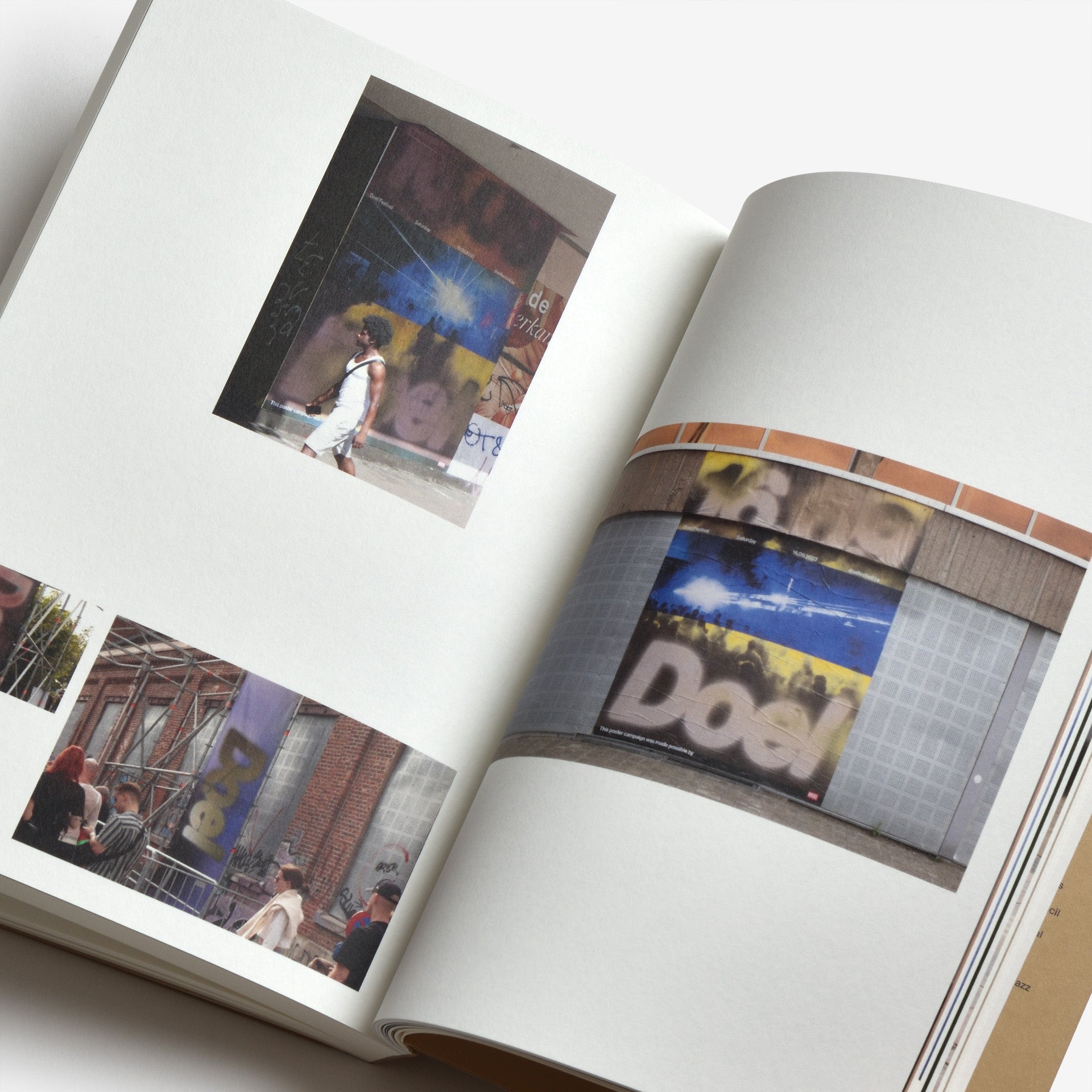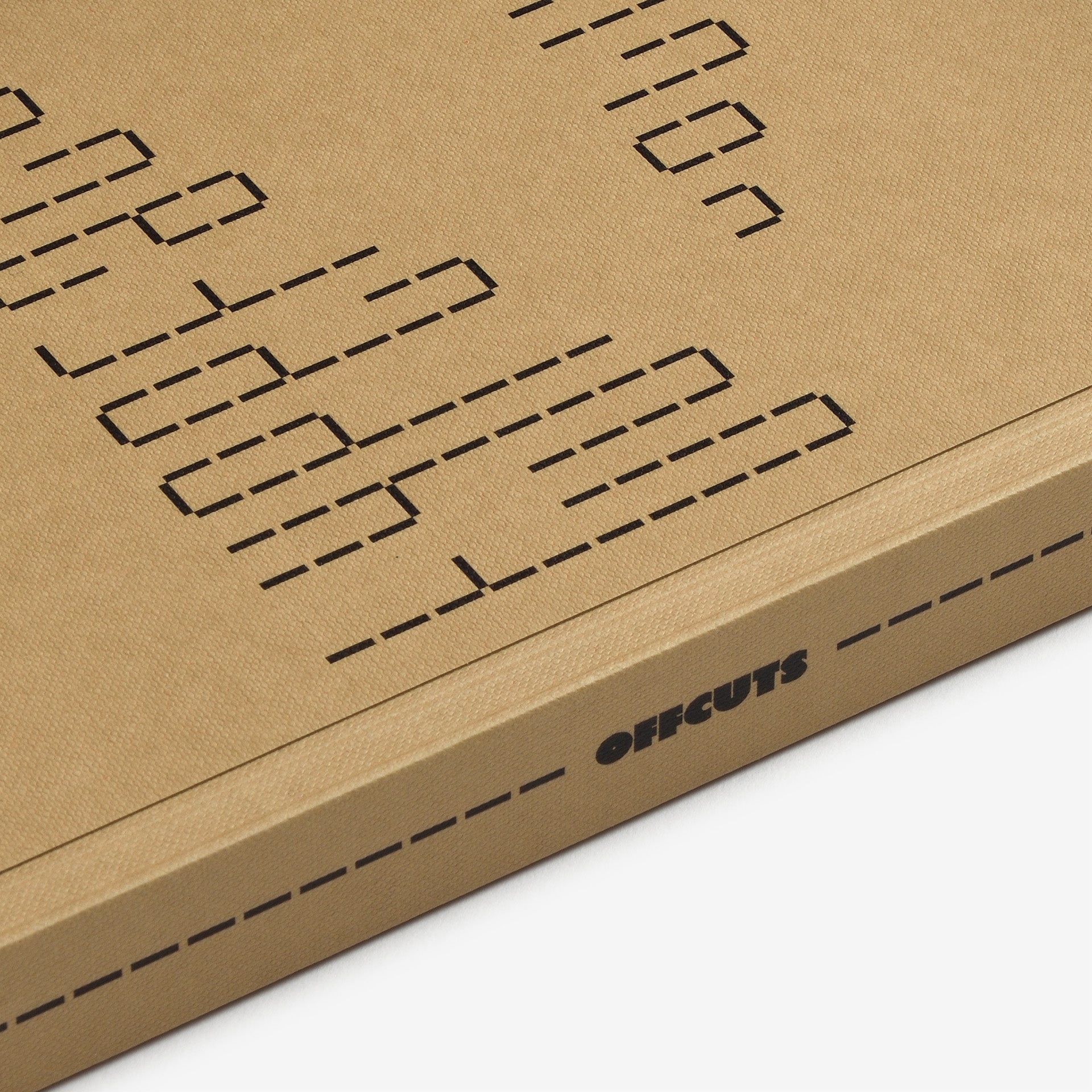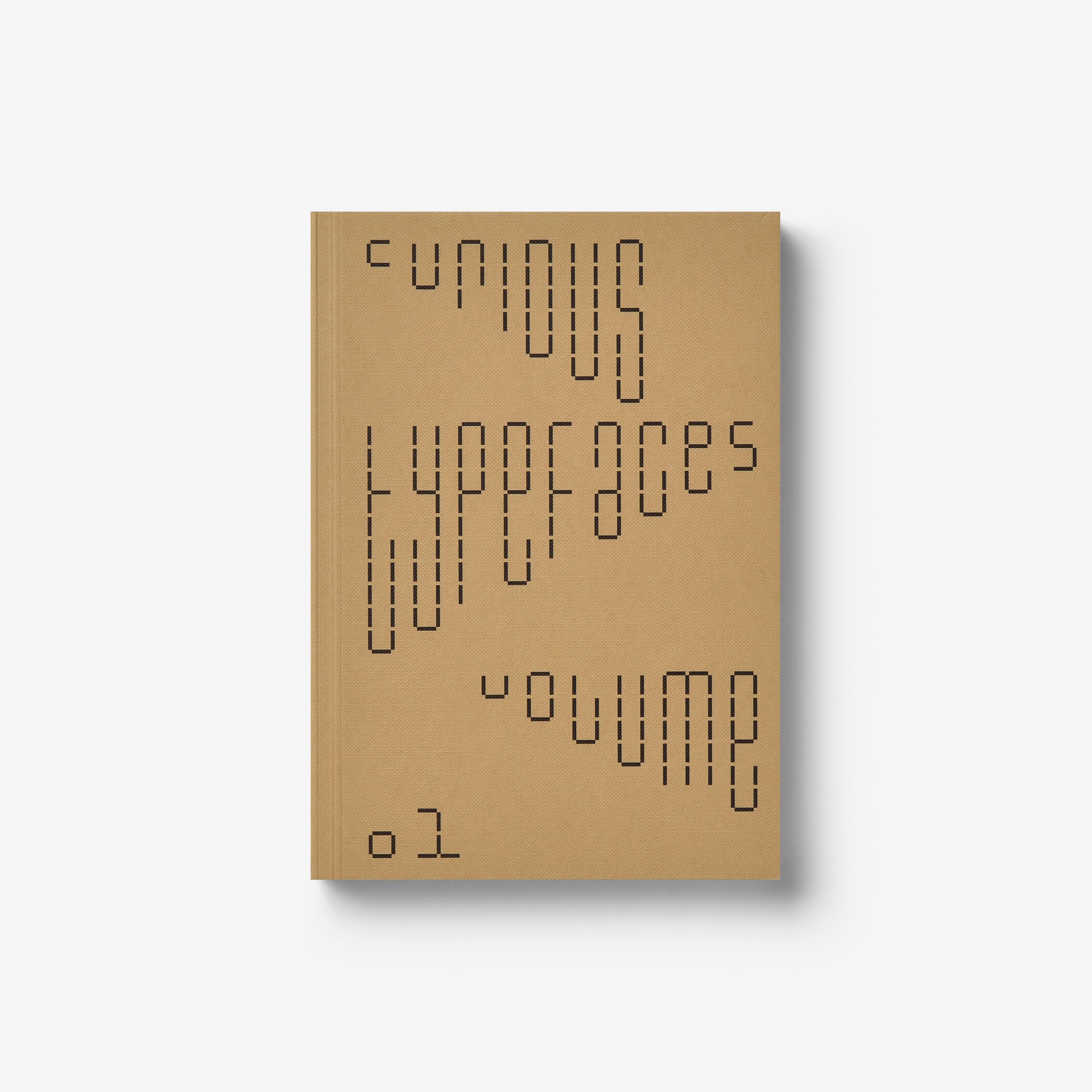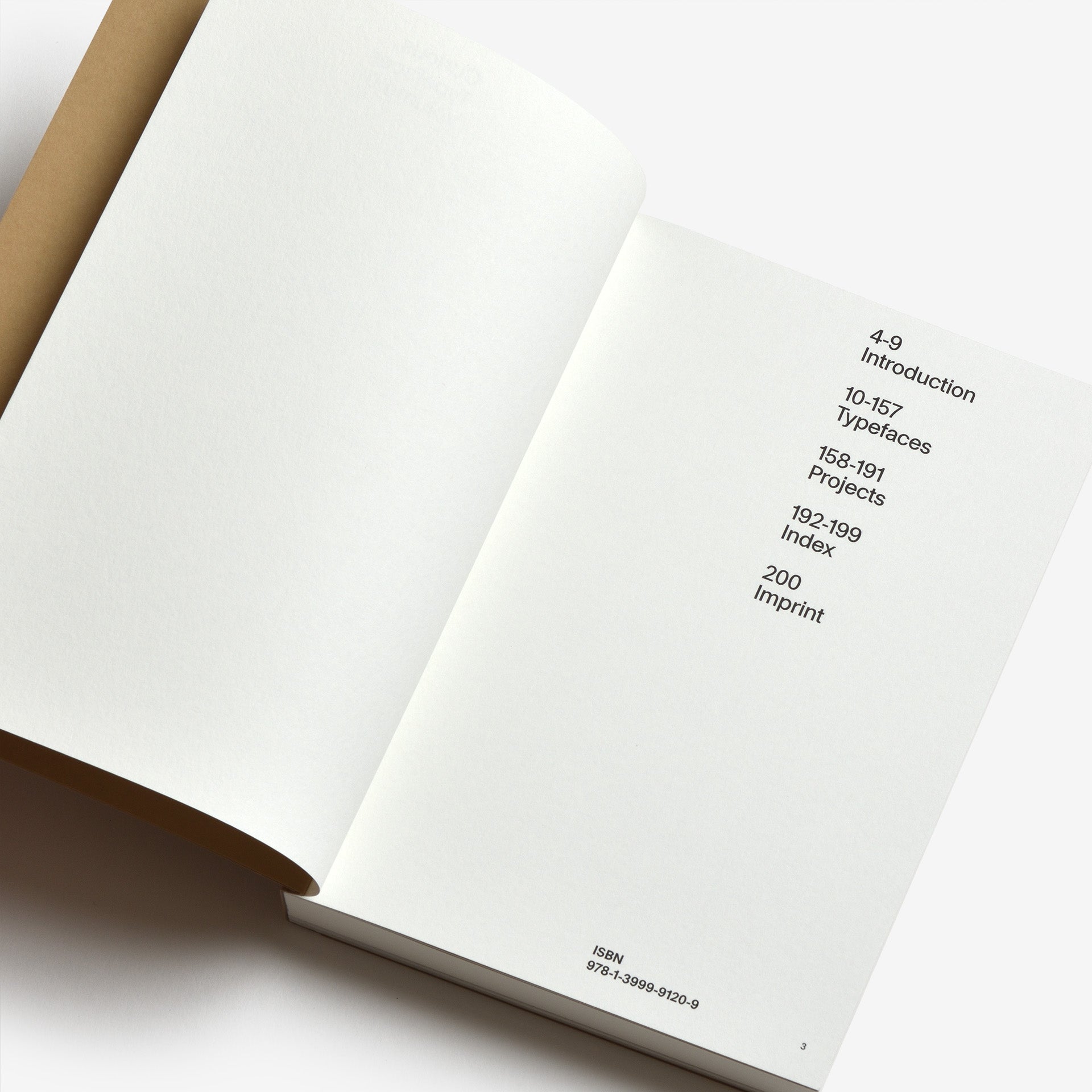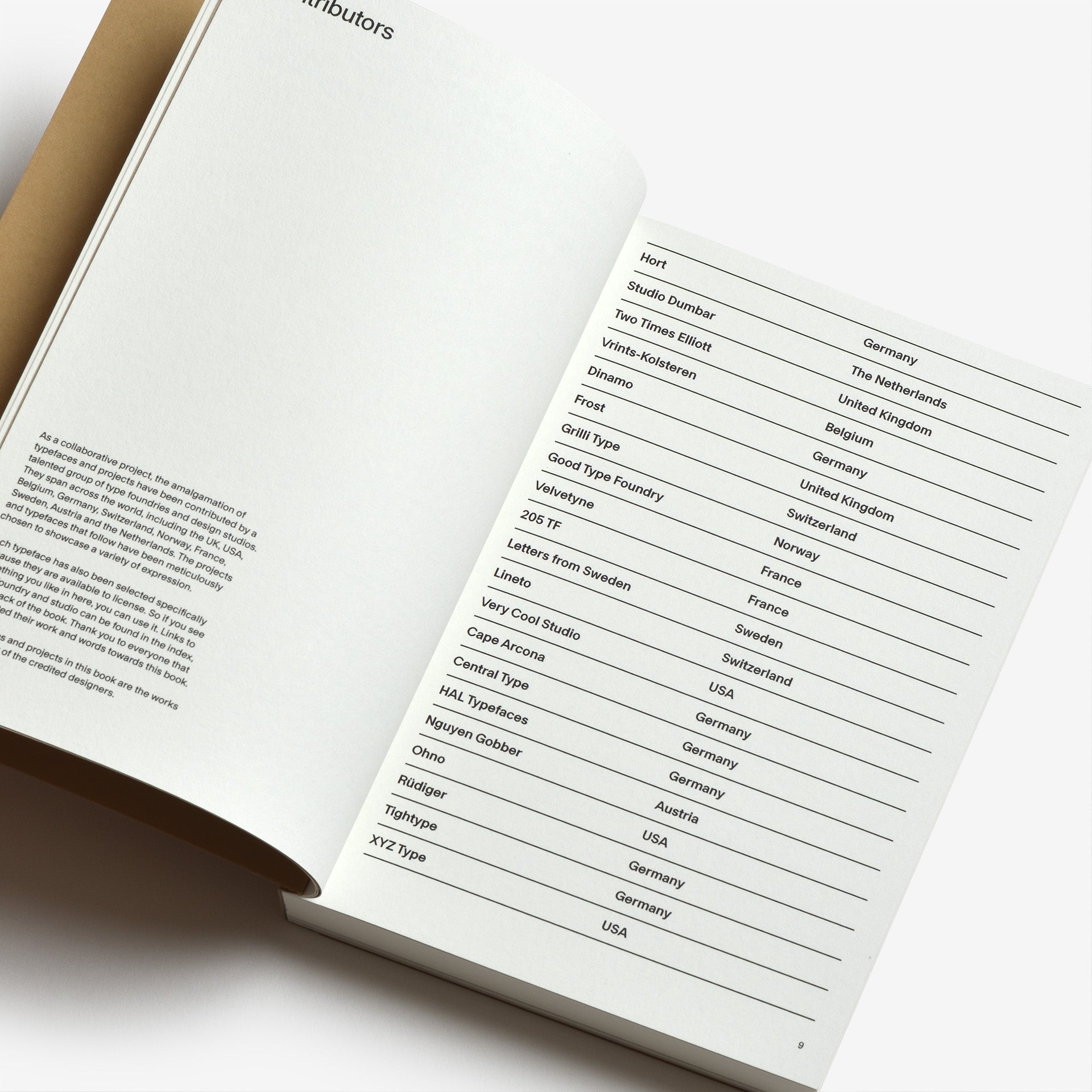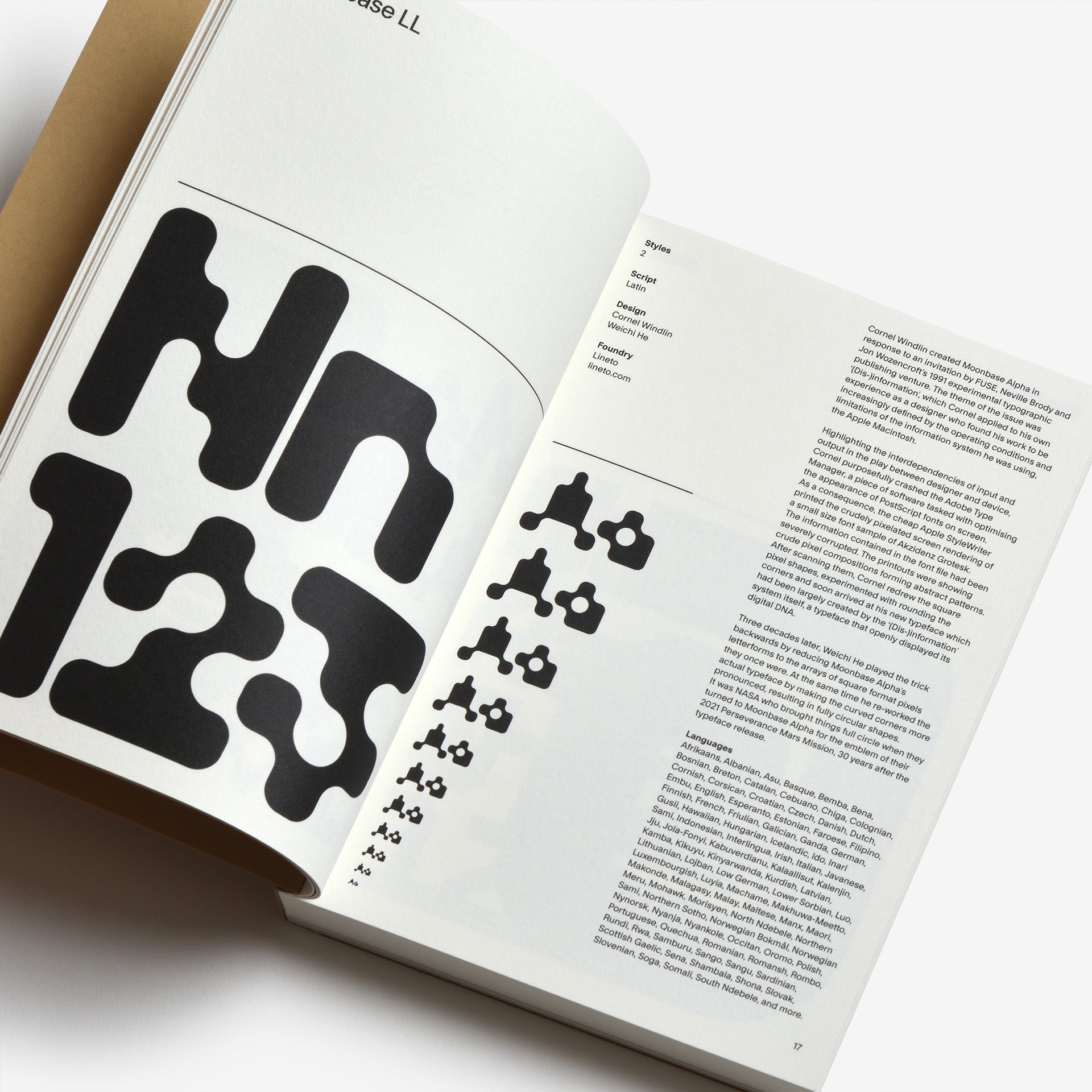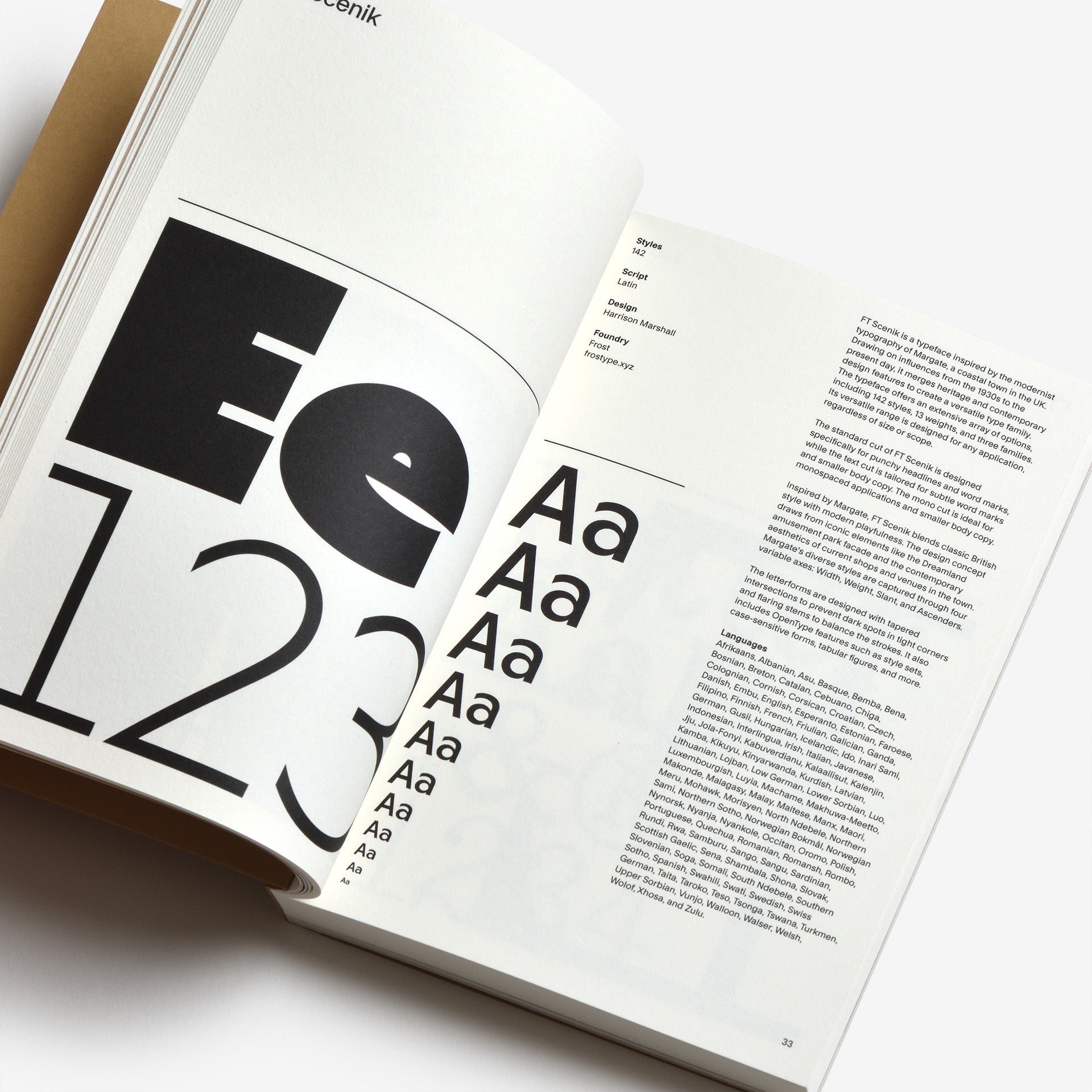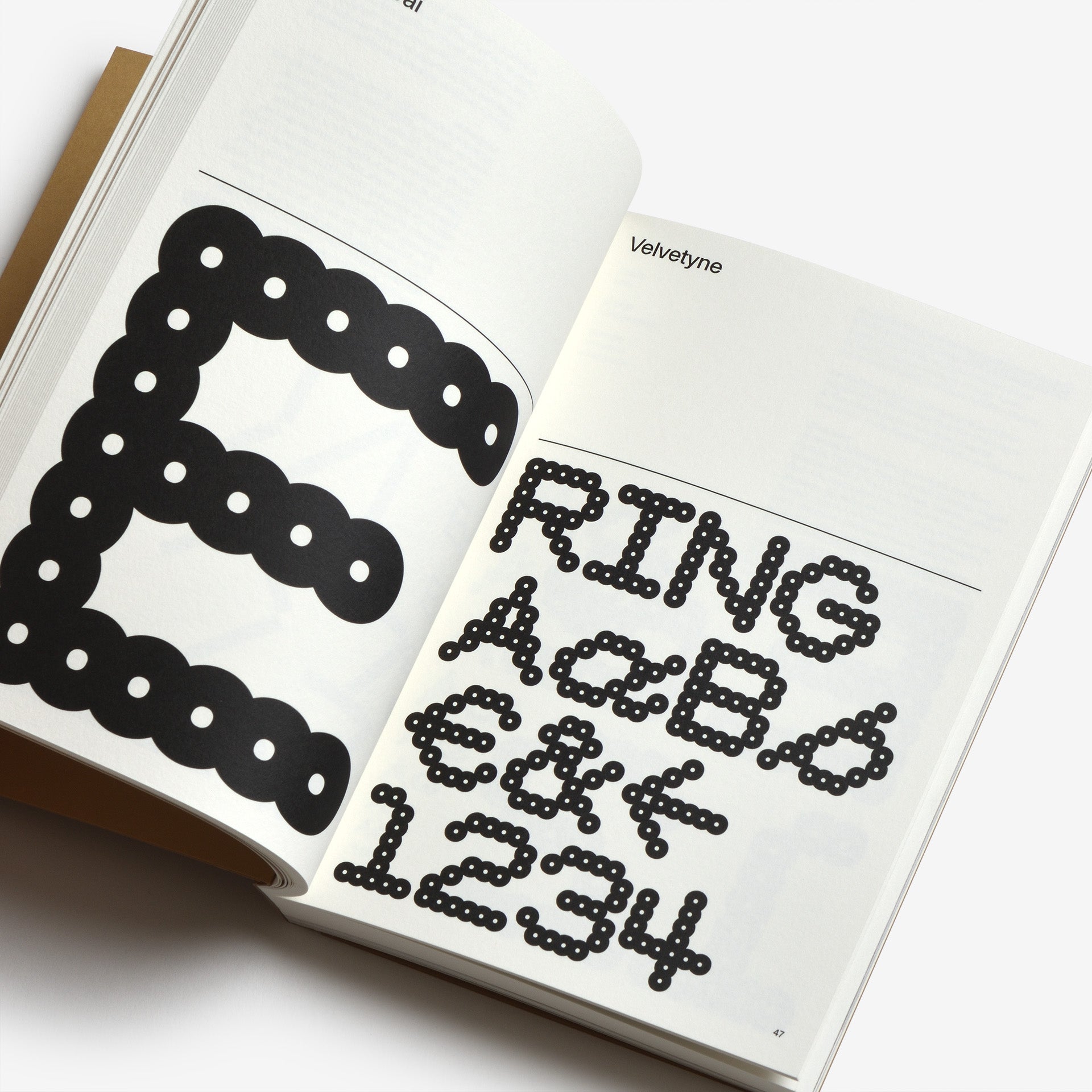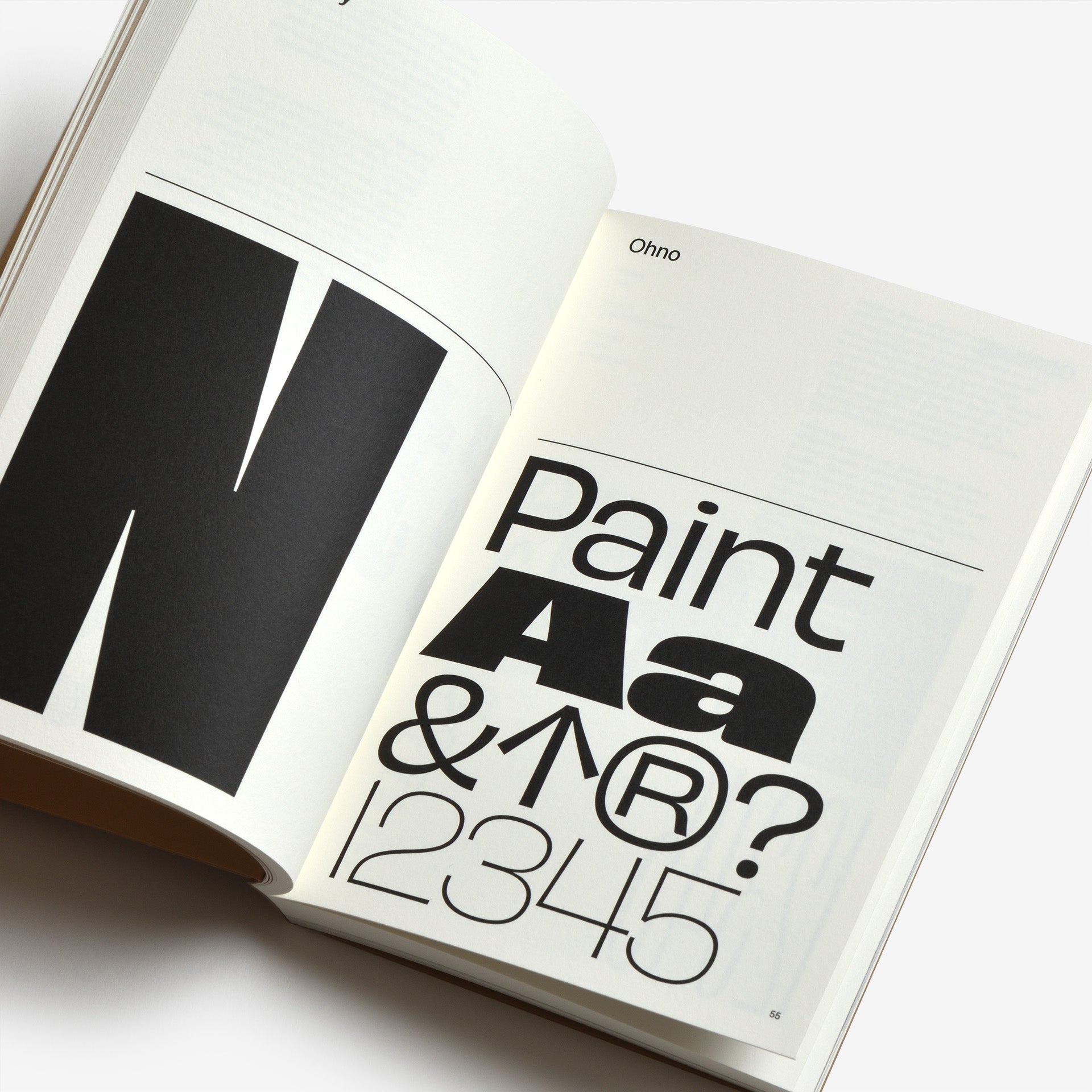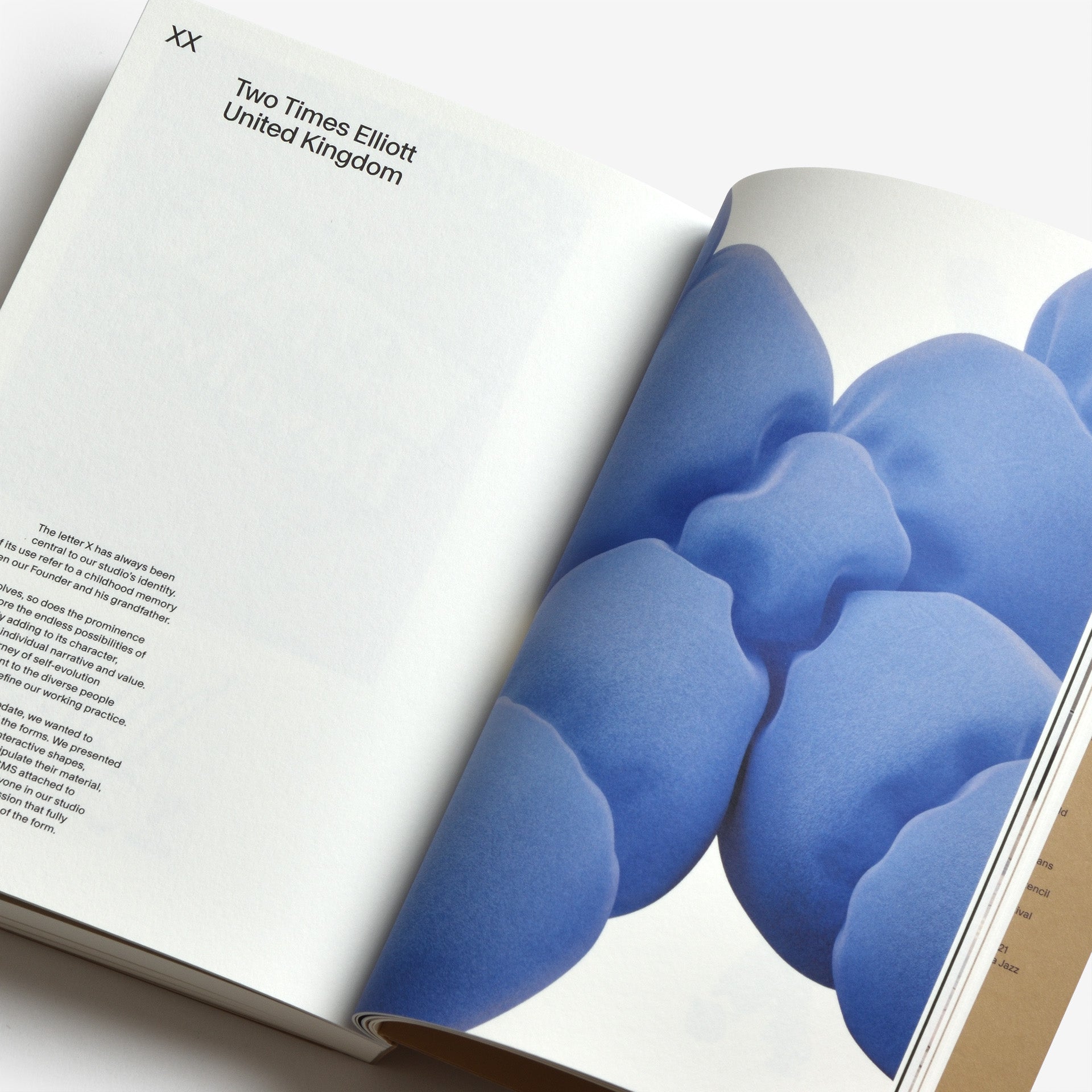
Curious Typefaces
Offcuts
A forever growing world of typefaces makes it increasingly harder to remember all your favourites. The first volume of this collection showcases just a few of those worth celebrating and physically places them on your shelf, to make sure they won’t get lost in the ever expanding world of design.
Fundamentally, typography plays two roles in design. Communicating language through symbols and emitting emotion through the way those symbols are formed. In some cases, the typeface transitions from communicating the subject into becoming the subject itself. Letterforms become the focus of your attention rather than the message itself. This can be used as an effective method for creating identity. Creating a visual voice through the use of a distinct typeface communicates who the message is from, before the message is even read. Untold amounts of typefaces leave you eager to know more about the subject they represent. Experimental typefaces can serve the purpose of generating curiosity, that grab your attention and leave you eager to know more. Graphic designers have an obligation to consumers when selecting a typeface. The importance of choosing a typeface can often be underestimated, as designers are responsible for drawing the link between the content and reader, and also for framing the way people interact with that information.
There seems to be a constant production of new and interesting typefaces, but that shouldn’t stop us from appreciating and reminding ourselves of older typefaces that stand the test of time. There are a vast amount of quality typefaces, and this book explores just a tiny handful of those. What is great about these curious typefaces, is that their charm makes you want to use them. Their letterforms and features can often inform a project. These typefaces hopefully help to intrigue designers, to both use and create more experimental typography.